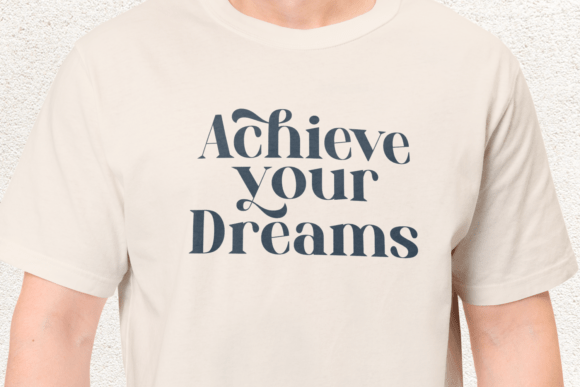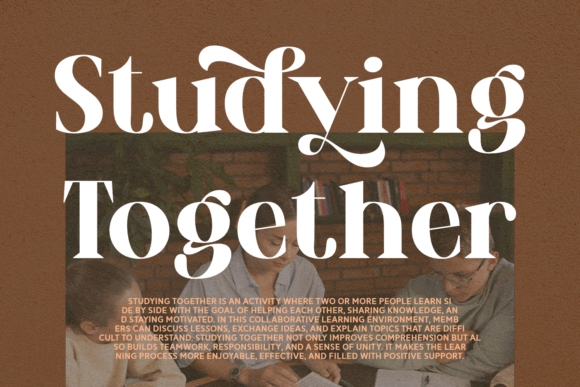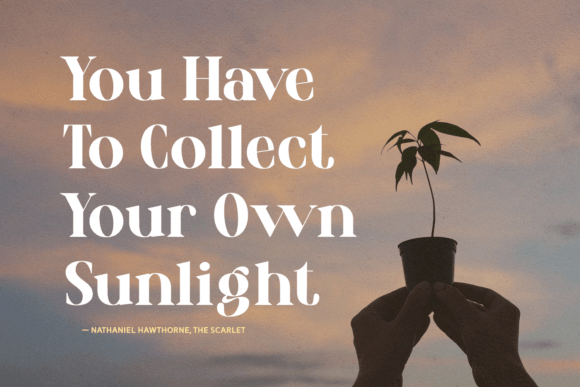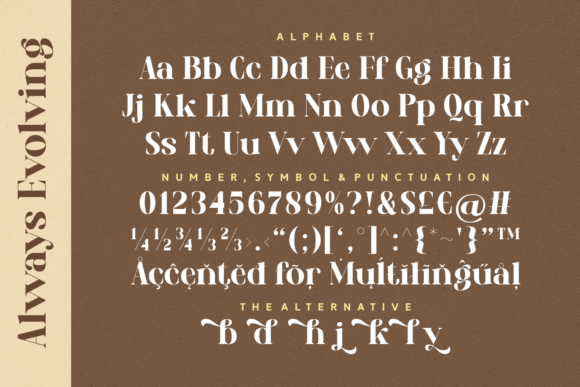
Introducing Always Evolving: The Ultimate Modern Serif Font for Elegant Designs
In the world of typography, fonts play a crucial role in conveying the tone and personality of a brand or design. For designers and crafters seeking to elevate their projects with a touch of elegance and confidence, the Always Evolving font is an exceptional choice. This bold and stylish modern serif font is designed to make a statement, whether used in large headlines or subtle accents.
What Makes Always Evolving Stand Out?
Always Evolving boasts a unique blend of classic serif elements with contemporary curves, making it a versatile typeface suitable for a wide range of applications. Its high-contrast strokes and artistic ligatures add a level of sophistication, perfect for luxury branding, high-end fashion logos, editorial layouts, packaging design, wedding invitations, and social media graphics.
Key Features of Always Evolving Font
• High-Contrast Strokes: The font’s high-contrast strokes create a sense of drama and elegance, making it ideal for headlines and titles that demand attention.
• Artistic Ligatures: The inclusion of artistic ligatures adds a touch of creativity and flair, allowing designers to add a unique spin to their typography.
• Classic Serif Elements: The font’s classic serif elements provide a sense of tradition and timelessness, while its contemporary curves keep it fresh and modern.
• Refined Balance: Always Evolving strikes a refined balance between beauty and power, making it suitable for a wide range of design applications.
Perfect for Luxury Branding and High-End Designs
Always Evolving is an excellent choice for designers and brands seeking to create a luxurious and sophisticated visual identity. Its elegant and refined appearance makes it perfect for:
• Luxury Branding: Create a high-end brand image with Always Evolving’s elegant and refined typography.
• High-End Fashion Logos: Make a statement with a bold and stylish logo that exudes confidence and sophistication.
• Editorial Layouts: Elevate your editorial designs with a font that commands attention and respect.
• Packaging Design: Add a touch of luxury to your packaging designs with Always Evolving’s elegant typography.
• Wedding Invitations: Create beautiful and sophisticated wedding invitations that set the tone for a special day.
• Social Media Graphics: Stand out on social media with eye-catching graphics that showcase your brand’s personality and style.
Why Choose Always Evolving Font?
With so many fonts available, why choose Always Evolving? Here are just a few reasons why this font stands out:
• Versatility: Always Evolving is a versatile typeface suitable for a wide range of design applications.
• Elegance: The font’s elegant and refined appearance makes it perfect for luxury branding and high-end designs.
• Confidence: Always Evolving exudes confidence and sophistication, making it ideal for designers and brands seeking to make a statement.
In conclusion, Always Evolving is an exceptional modern serif font that can elevate any design project with elegance and confidence. Its unique blend of classic serif elements with contemporary curves, high-contrast strokes, and artistic ligatures make it a versatile typeface suitable for a wide range of applications. Whether you’re a designer or crafter, Always Evolving is an excellent choice for those seeking to create luxurious and sophisticated designs that make a statement.